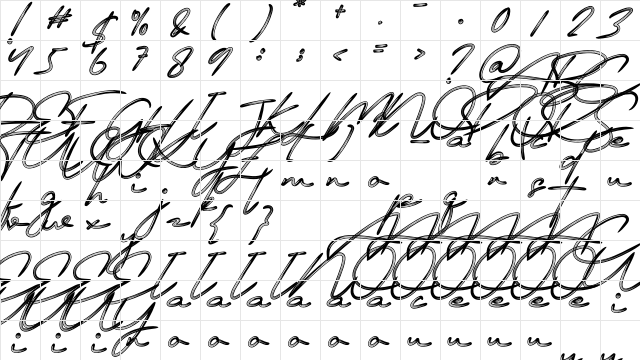
Signature December Regular
Design Context for Signature December Typeface
Signature December is a composed and adaptable typeface that performs quietly and consistently across a wide range of design contexts.